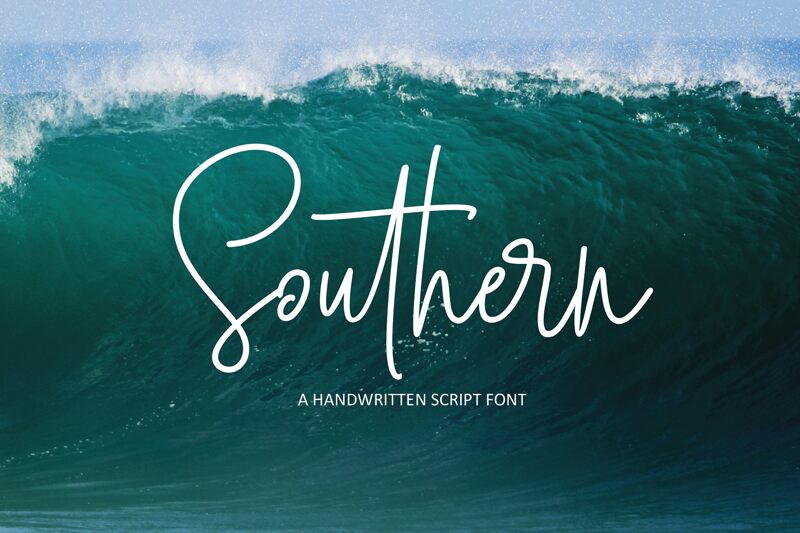
Southern, a charming handwritten font by Moriztype, captures the essence of warmth and nostalgia. With its delicate strokes and extra-light weight, this font exudes elegance and sophistication. Its semi-condensed width adds a touch of modernity while maintaining legibility.
Perfect for wedding invitations, greeting cards, and branding projects, Southern effortlessly brings a personal touch to any design. Embrace the unique blend of classic appeal and contemporary flair that Southern offers, making every project an unforgettable experience.